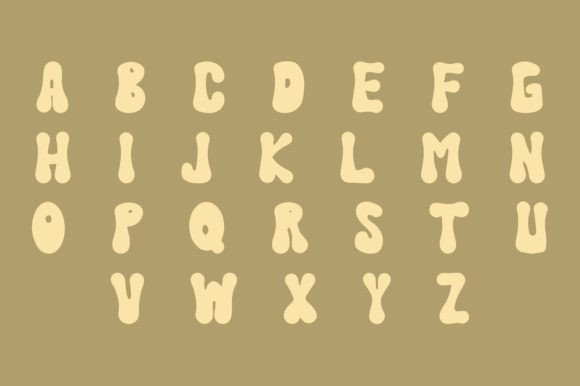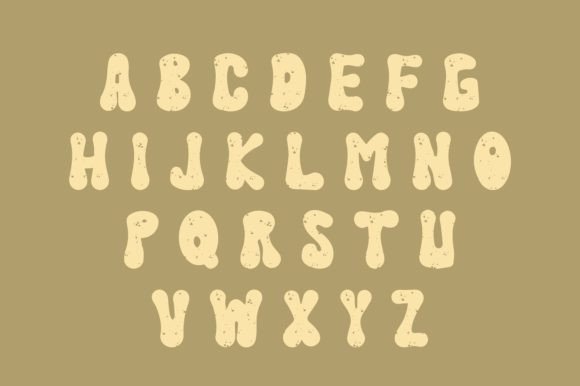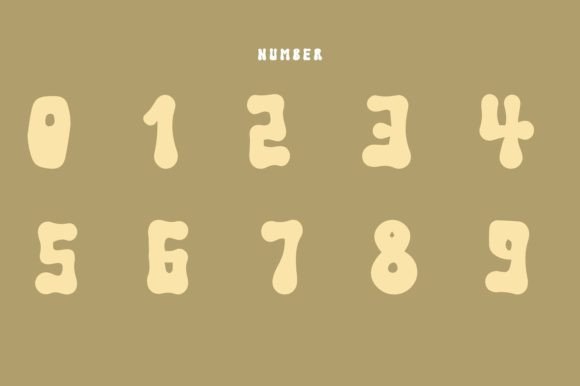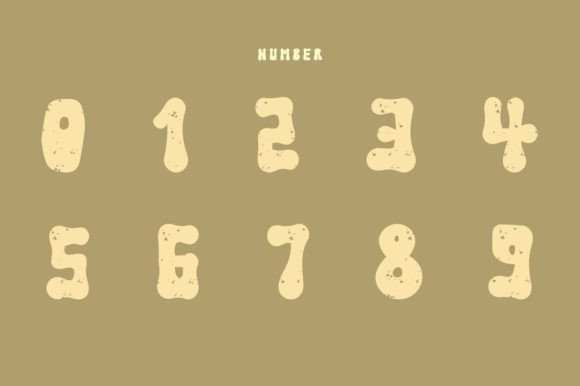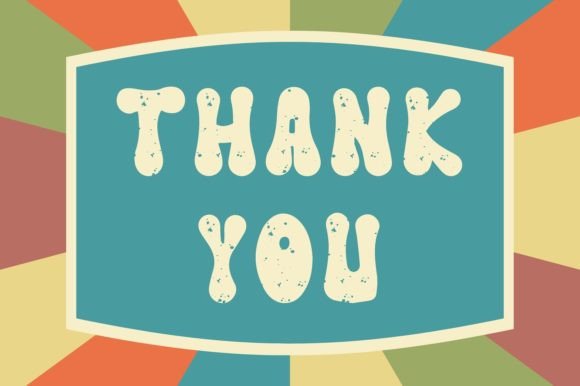
Introduction to Happy Groovy Font
Do you remember that moment when you stumbled upon the perfect font for your creative project? The one that instantly transports you to a world of vibrant colors, carefree vibes, and endless possibilities? For many designers, that moment is all about finding the right font to bring their ideas to life. And for those who have discovered it, we’re excited to share the joy of the Happy Groovy Font with you.
This retro and fun decorative font is more than just a design element – it’s a way to infuse your projects with playfulness and authenticity. Whether you’re working on a blog post, logo, or advertisement, the Happy Groovy Font is the perfect addition to make your designs stand out. And the best part? It’s available for free download, making it an invaluable resource for designers of all levels.
Key Features of Happy Groovy Font
- Unique blend of psychedelic and retro elements, perfect for creative projects requiring a groovy vibe.
- High-quality design with transparent background, allowing for seamless integration into various backgrounds and designs.
- Comes in a single font size, ideal for use in various design contexts, from small text to large headings.
- High-resolution design, suitable for print and digital applications, including posters, flyers, and social media graphics.
- Designed as a versatile design resource, perfect for adding a touch of fun and creativity to your projects.
- Includes a wide range of characters, including uppercase and lowercase letters, numbers, and special characters.
Honest Review: Happy Groovy Font
As a designer, I’m always on the lookout for high-quality fonts that can elevate my creative projects. The Happy Groovy Font caught my attention, and I’m excited to share my honest review.
What works well: ✨ I was impressed by the font’s unique, hand-drawn style that adds a personal touch to any design. It’s perfect for creating a playful and carefree atmosphere in your projects. The font is also highly customizable, allowing you to adjust the size, color, and spacing to suit your needs.
- High-quality design that’s perfect for creative projects, such as social media graphics, posters, and flyers.
- Transparent background, making it easy to use on any design surface.
However, there are some limitations: ⚠️ The font’s complexity may make it difficult to use in certain situations, such as in small text or in designs with a lot of text overlays. Additionally, the font may not be suitable for formal or corporate designs.
Overall, I’m impressed with the Happy Groovy Font’s unique style and high-quality design. It’s an excellent resource for designers looking to add a playful touch to their projects. While it may have some limitations, it’s definitely worth checking out for your next creative project.
Tips for Getting the Most Out of Happy Groovy Font
Use the Happy Groovy Font to add a touch of whimsy and creativity to your design projects. Experiment with different font sizes, colors, and styles to find the perfect combination for your project. Take advantage of the font’s transparent background to create visually appealing designs.
The Happy Groovy Font is ideal for use in creative projects such as social media graphics, blog posts, and infographics. It’s also great for use in presentations and documents where a unique and eye-catching font is desired.